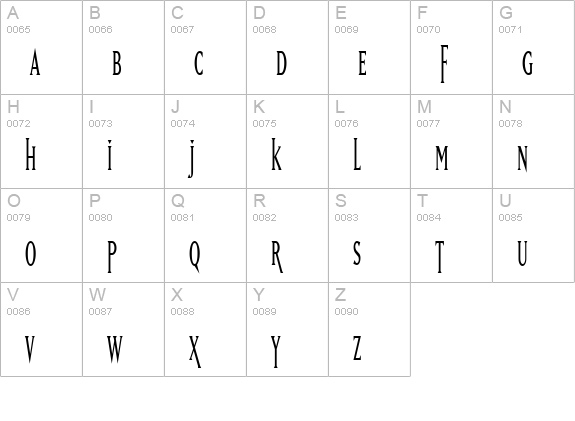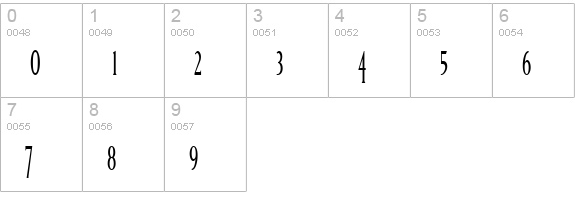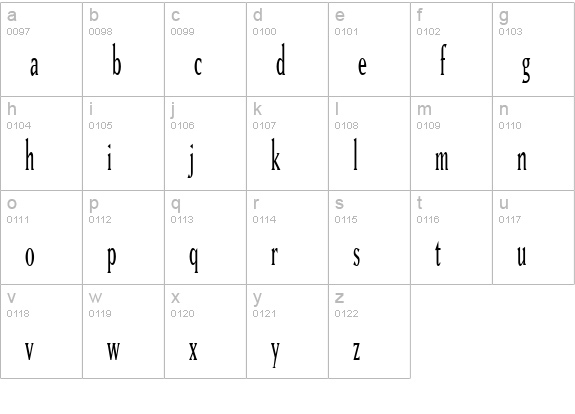
MatrixTallOldstyle Regular Font Details
MatrixTallOldstyle Regular is the standard, neutral variant in the MatrixTallOldstyle typeface family \xE2\x80\x94 well suited to general body text, paragraphs, and standard typographic work.
MatrixTallOldstyle Regular font is a timeless and elegant typeface that exudes sophistication and class. Its tall, slender letterforms evoke a sense of grace and refinement, making it the perfect choice for projects that require a touch of old-world charm. This font is ideal for use in headlines, branding, invitations, and more. The best part? MatrixTallOldstyle Regular font is available for free download at FontsMarket.com. Take advantage of this incredible offer and enhance your designs with this beautiful and versatile typeface today. Elevate your typography game with MatrixTallOldstyle Regular font and bring a touch of classic elegance to your projects.